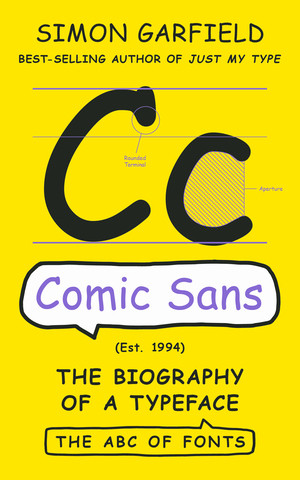
Comic Sans (The Biography of a Typeface)
Since its improvised creation at Microsoft in the mid-1990s, Comic Sans has become one of the most used and talked-about typefaces of the digital age. The subject of April Fools pranks and endless internet discourse, it has spawned a movement to ban it, inspired revivals and spinoffs, and continues to be widely promoted by educators. In this delightful history, best-selling author Simon Garfield tells the story of how Comic Sans emerged from speech bubbles on educational software to become one of the most recognized—and reviled—typefaces on earth. He considers how the computer transformed type into something that anyone could use and have an opinion on, explores how new fonts emerge with changing times and technology, and meets die-hard Comic Sans adherents and haters. He concludes the book by asking the unimaginable: Could Comic Sans now be the coolest typeface ever made?